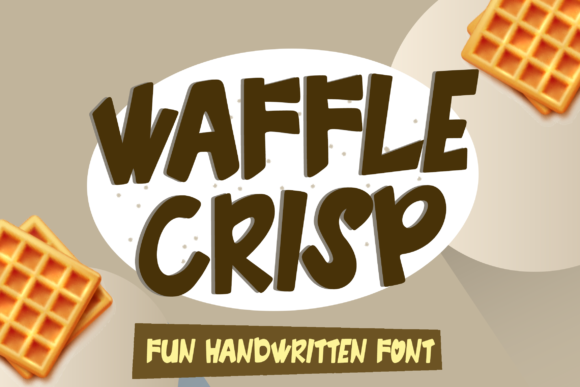
Waffle Crisp Font
Journey into the world of Waffle Crisp, a display font that captures the essence of playful joy. Prepare to be captivated by its charming curves and whimsical strokes, ready to infuse your creative projects with an irresistible touch of lightheartedness. Unlock the boundless potential of Waffle Crisp and discover a realm of endless possibilities.
With Waffle Crisp by your side, transform your designs into engaging and delightful masterpieces. Embrace the spirit of playfulness and let your imagination run wild. Craft eye-catching logos that radiate positivity, design invitations that spark curiosity, or create social media posts that exude vibrancy. The possibilities are endless, and Waffle Crisp is your trusty companion, ready to elevate your creations to new heights.
Picture your designs adorned with Waffle Crisp's captivating strokes, drawing attention and sparking joy. Imagine the smiles it will bring to your audience's faces as they encounter your creations. Let Waffle Crisp be your secret weapon, the font that sets your work apart and leaves a lasting impression.
Whether you're a seasoned designer or just starting your creative journey, Waffle Crisp is your perfect companion. Its user-friendly nature makes it accessible to all, allowing you to effortlessly incorporate its charm into your projects. Unleash your creativity and let Waffle Crisp guide you towards designs that resonate with your audience.
So, dive into the world of Waffle Crisp today and let your imagination soar. Experience the joy of creating with a font that brings life to your designs. Let Waffle Crisp be the spark that ignites your creativity and sets your work ablaze with delight.